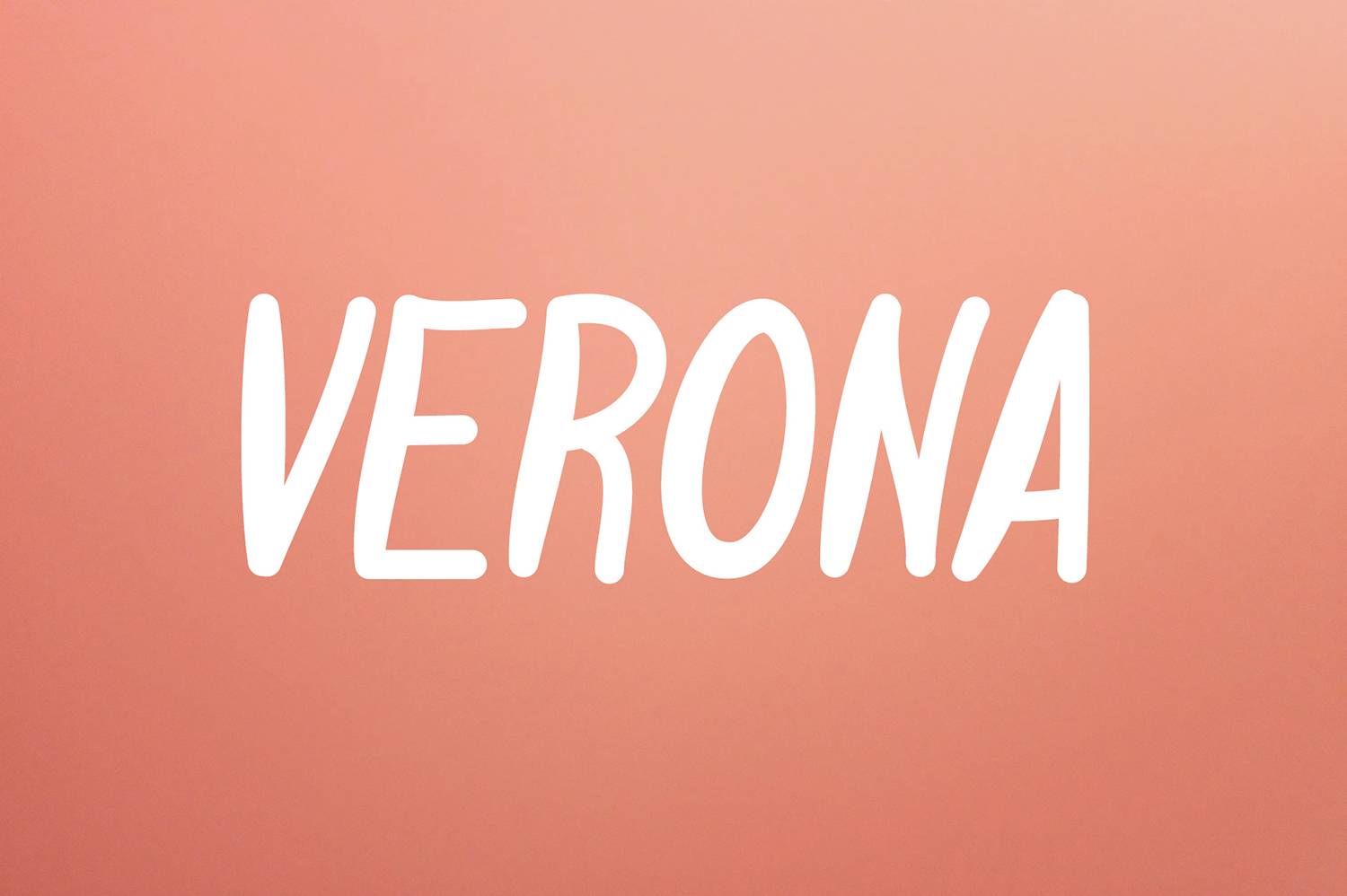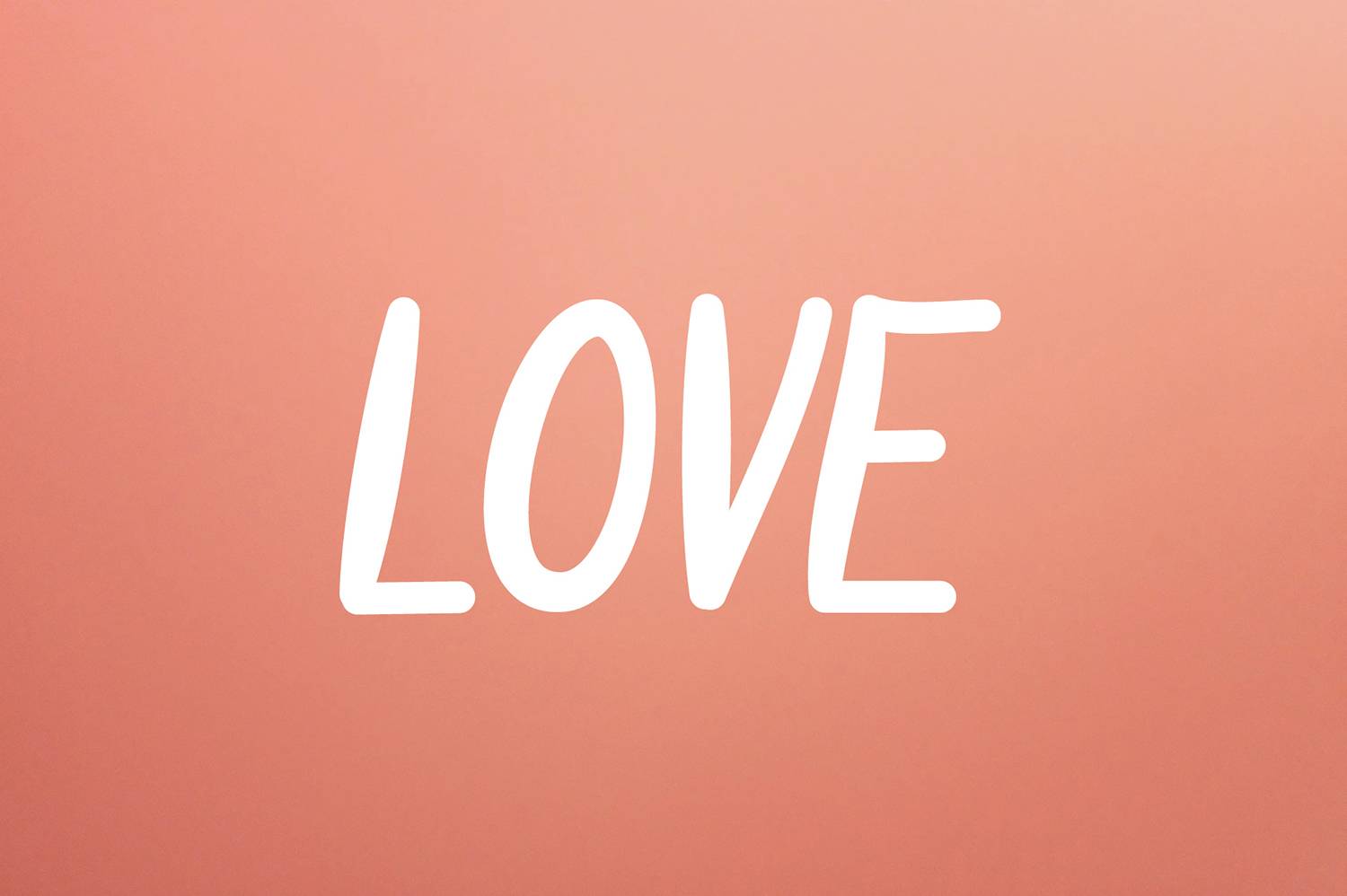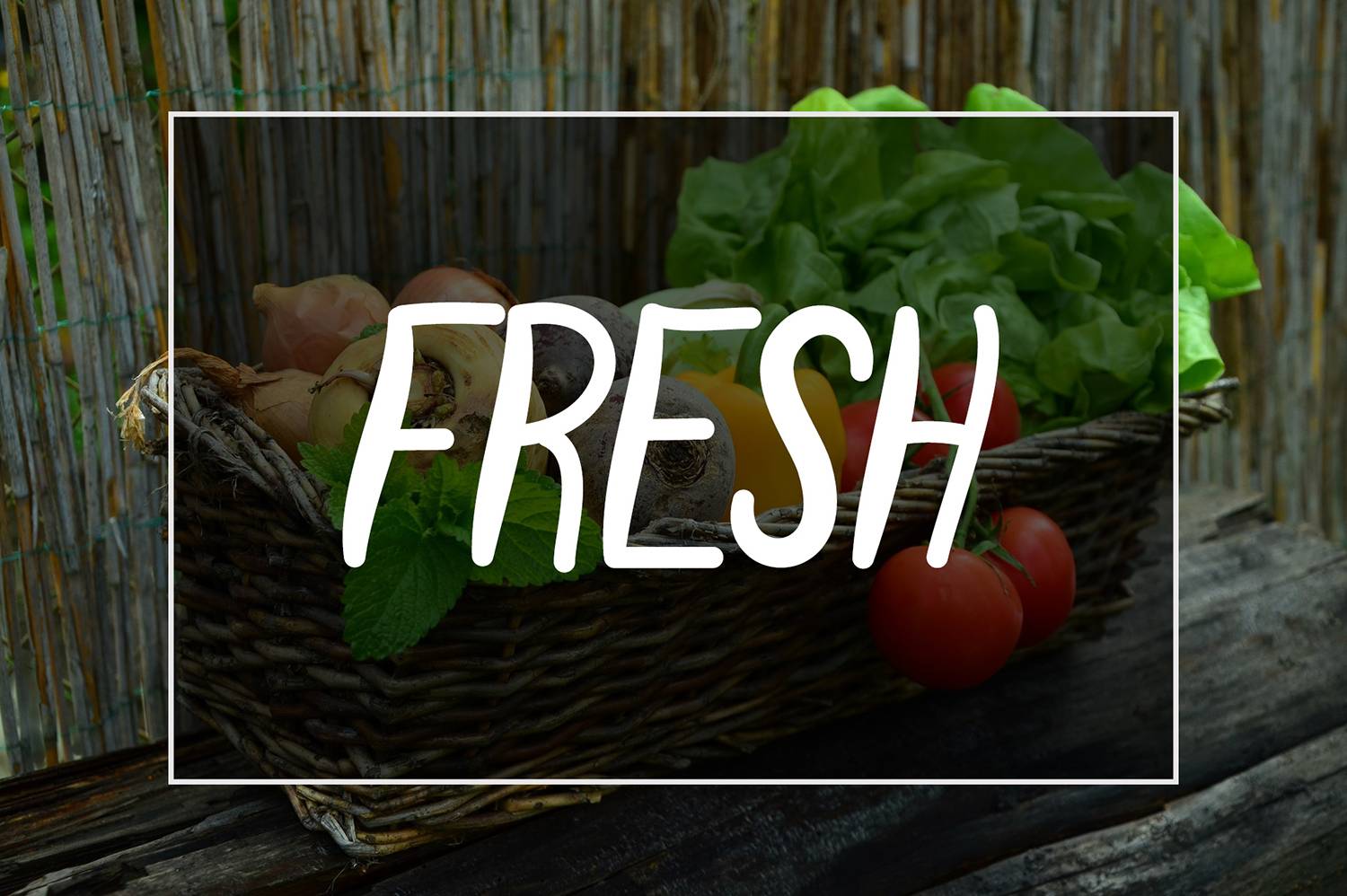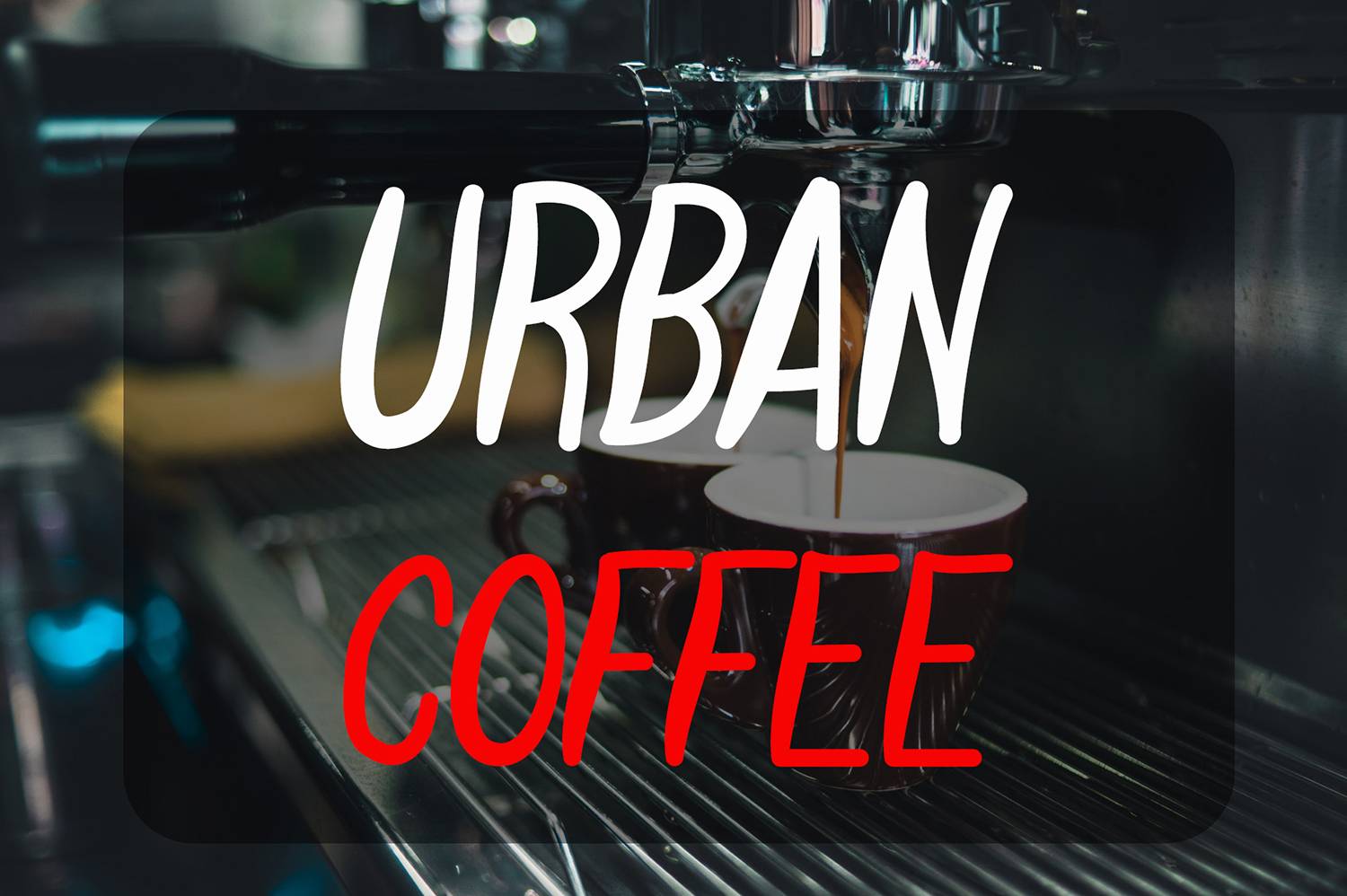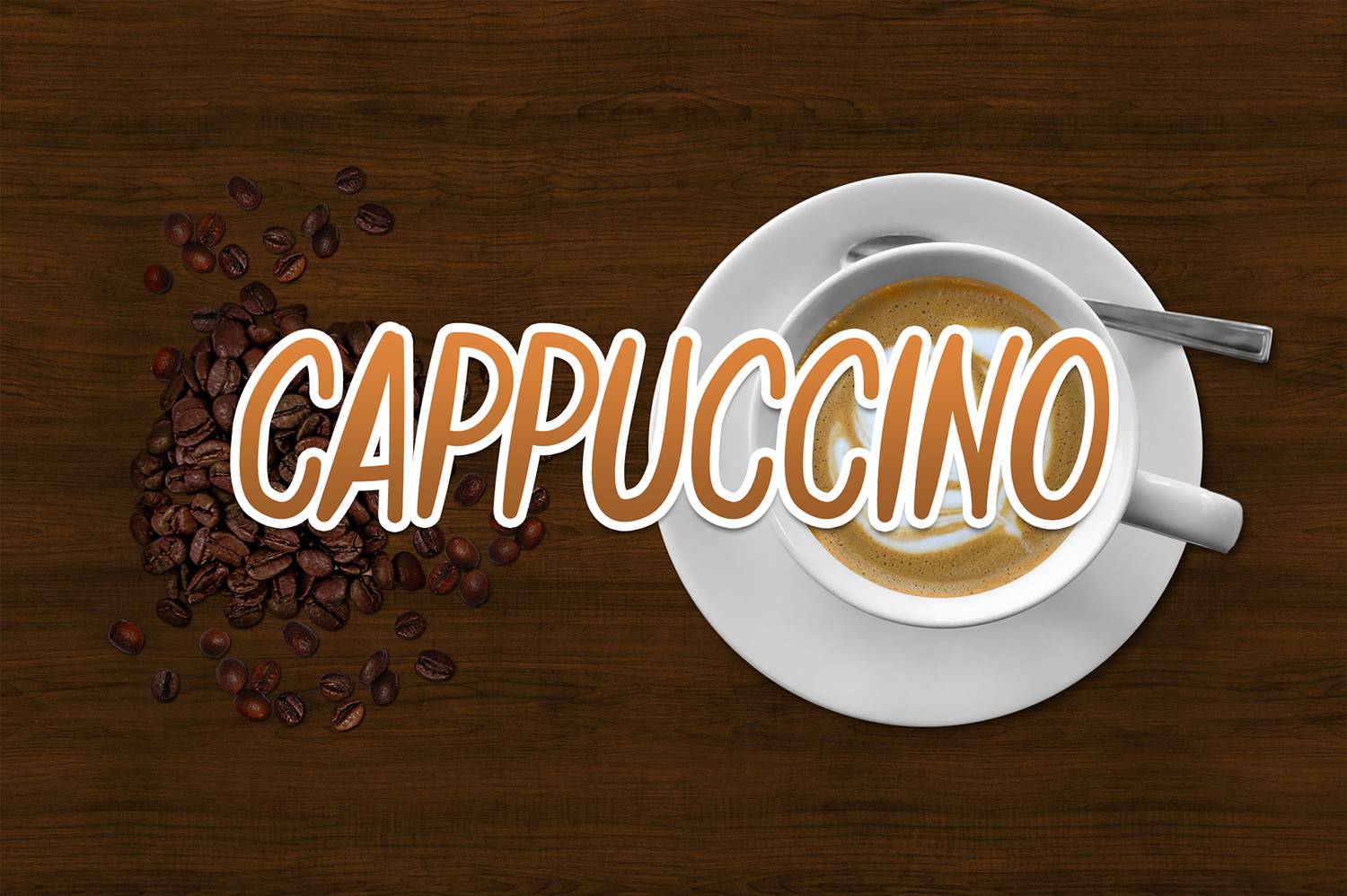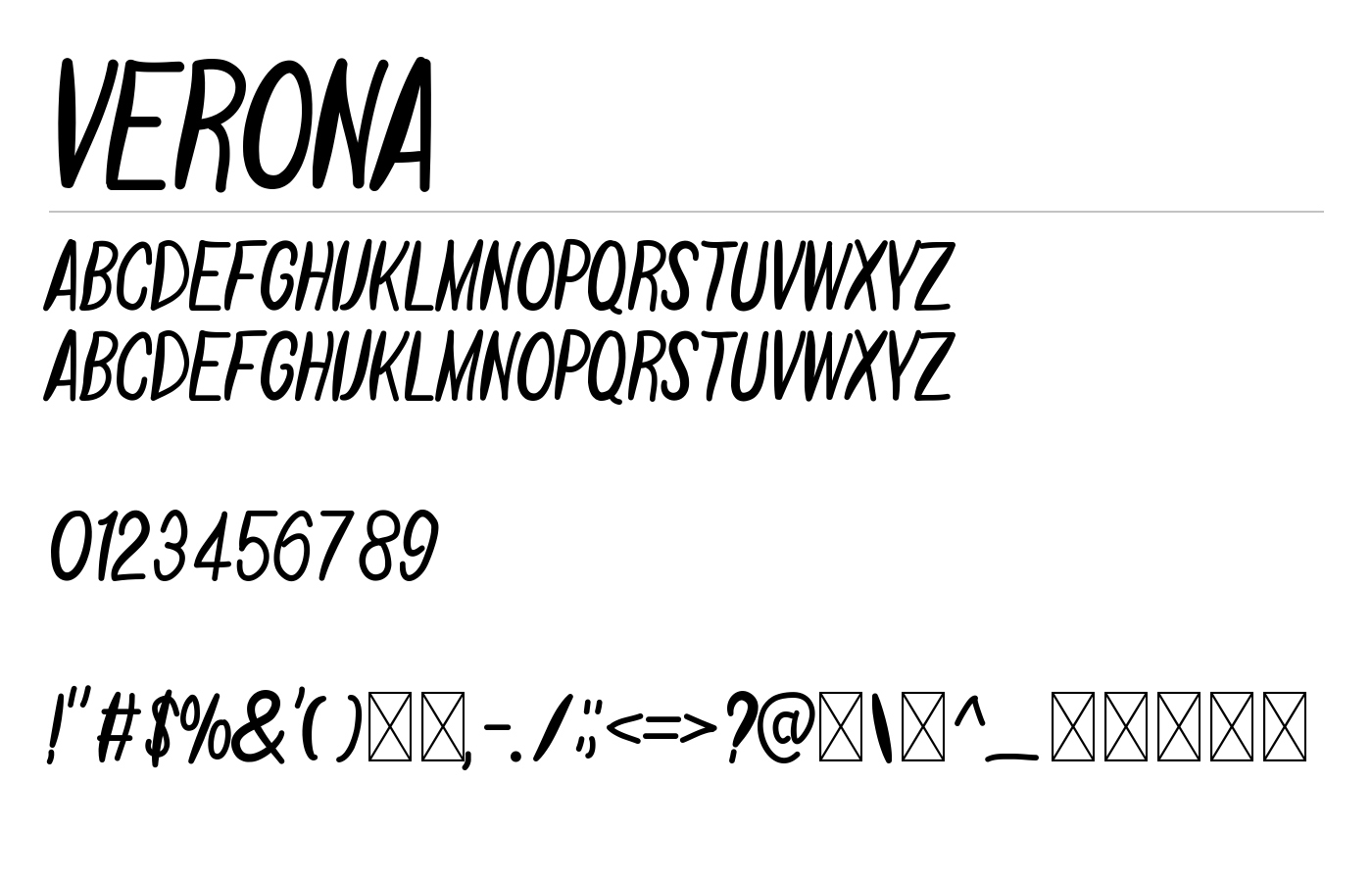
Verona is a playful and casual sans serif font with a handwritten feel, characterized by its tall, narrow letterforms and slightly irregular strokes. Its light weight and lively, slightly slanted style make it ideal for creative and informal designs, such as logos, posters, and packaging that seek a friendly, approachable vibe. This font works best in display settings where personality and charm are key, adding an inviting touch without compromising readability.
Verona Font
About Verona Font